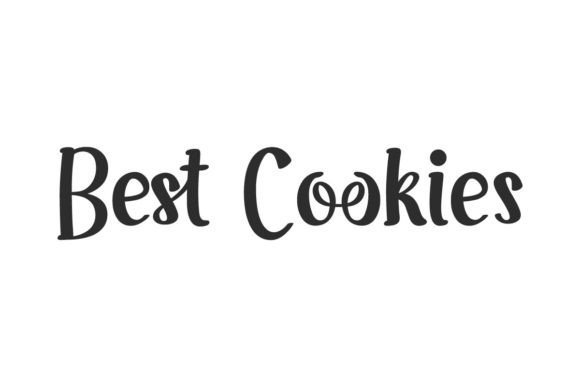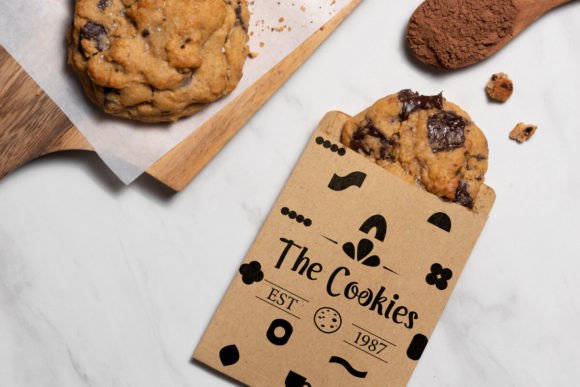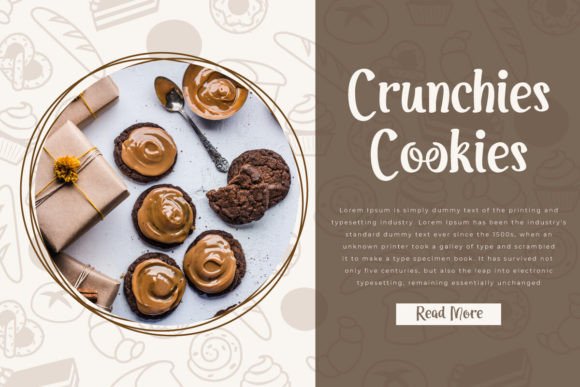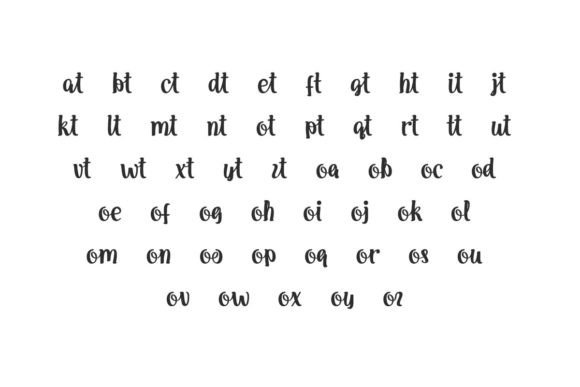
Getting Your Sweet Fix with the Best Cookies Font
Have you ever been working on a design project and just can’t seem to get the right touch of whimsy? Maybe you’ve been staring at a blank page, trying to decide on the perfect font to bring your idea to life. We’ve all been there, but sometimes all it takes is a little something sweet to get those creative juices flowing. For designers looking to add a playful twist to their work, the Best Cookies Font is here to save the day.
This charming handwriting font with a comic style is the perfect solution for anyone looking to add a touch of personality to their designs. Whether you’re working on a billboard, business card, or product packaging, the Best Cookies Font is sure to bring a smile to your customers’ faces. With its versatility and ease of use, it’s no wonder this font has become a favorite among designers.
Key Features of “Best Cookies Font”
- Font Family: Best Cookies Font is a unique, hand-drawn font family designed for baking and food-related themes.
- Size: The font family includes 4 different font sizes: Regular, Bold, Italic, and Bold Italic, catering to various design needs.
- Unique Characteristics: Features a playful, whimsical design with intricate details and textures, perfect for baking-themed designs and packaging.
- Language Support: Supports a wide range of languages, including English, Spanish, French, and more, making it a versatile choice for global designs.
Designer Review: Best Cookies Font
Overall, I’d say the Best Cookies Font is a decent option for baking-themed projects. Here’s what works well:
- ✨ The font is playful and fun, which makes it perfect for adding a touch of whimsy to your designs.
- ✨ The font’s weight and size variations make it easy to customize and create visual hierarchy.
- ✨ The font’s script-like quality adds a personal touch, which can be great for invitations, menus, or other baking-related materials.
- ⚠️ The font may not be ideal for large blocks of text, as the script-like quality can make it difficult to read.
- ⚠️ The font’s bold and italic variations may not be as seamless as some other fonts, which can affect the overall look of your design.
Overall, I’d recommend the Best Cookies Font for small to medium-sized projects where a playful, baking-themed font is needed. While it may not be perfect, it’s a solid choice for adding a touch of personality to your designs.
The Best Cookies Font is ideal for:
- Food-related designs, such as bakery logos or menus.
- Children’s party invitations or decorations.
- Brand identities that require a playful, whimsical touch.
For optimal results, use the Best Cookies Font in conjunction with bright, pastel colors and playful graphics.